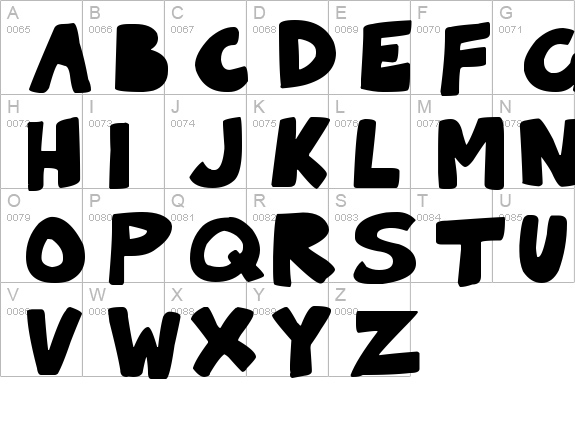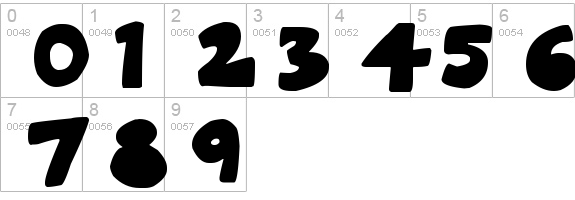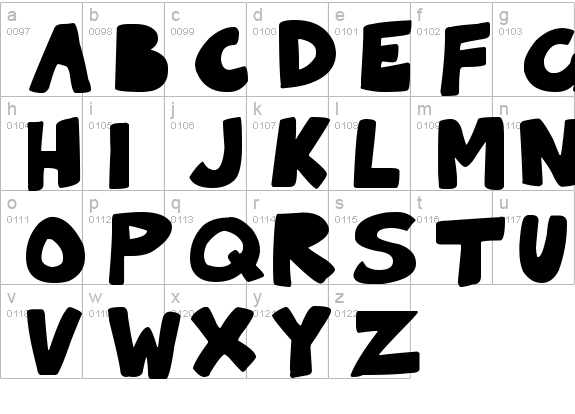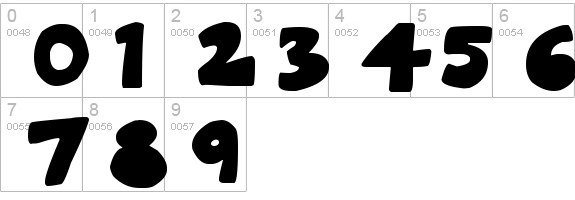
Cartoonlings Font Details
Introducing Cartoonlings font, a whimsical and playful typeface perfect for adding a touch of fun to your creative projects. This delightful font features charming characters and a unique design that will bring a smile to your audience's faces. Whether you're working on a children's book, a poster, or a branding project, Cartoonlings font will add a playful element to your work.